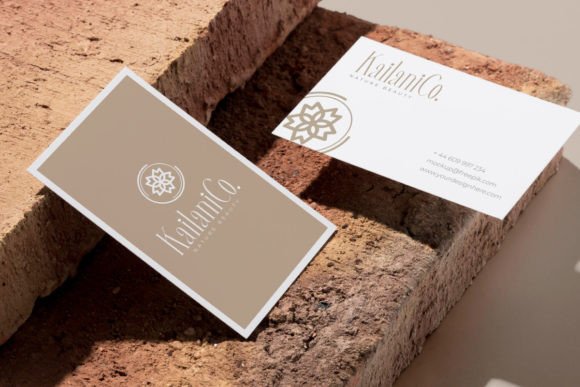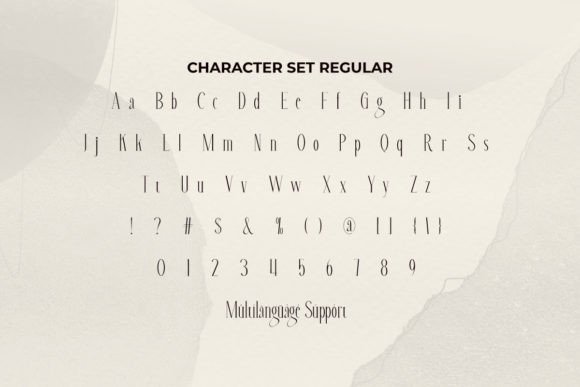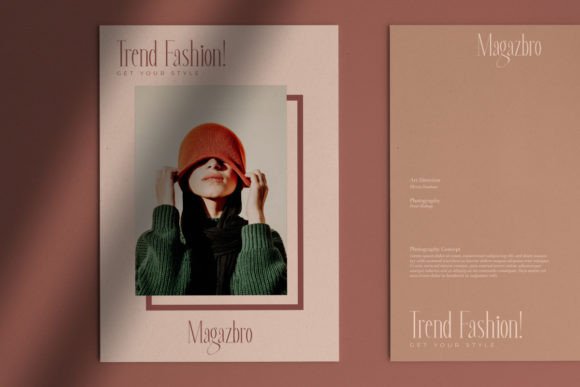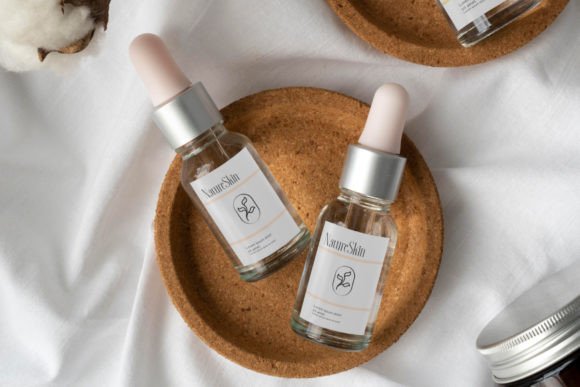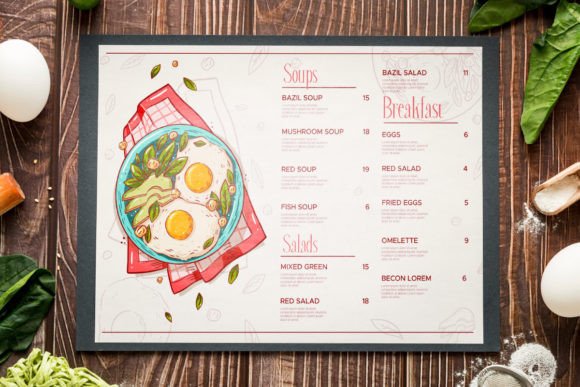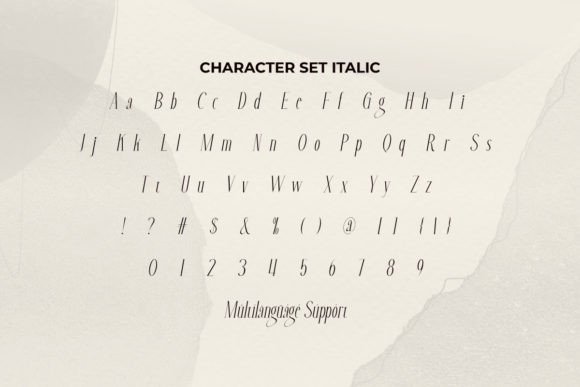
Introducing Caroline Stage Font: Elevate Your Designs with Elegance
In the world of typography, a font can make or break the aesthetic of a design. For designers and crafters seeking a touch of elegance and sophistication, Caroline Stage Font is an exceptional choice. This stylishly elegant serif font, brought to you by NoahType, offers two versatile styles: simple and italic. With its wide range of applications, Caroline Stage Font is poised to become a staple in your design toolkit.
The Essence of Caroline Stage Font
Caroline Stage Font is characterized by its classic serif design, which exudes a sense of refinement and luxury. The simple style boasts clean lines and subtle nuances, making it perfect for designs that require a touch of understated elegance. On the other hand, the italic style adds a dash of flair, with its cursive undertones and dynamic flow. This versatility allows designers to experiment with various visual hierarchies and emphasize specific elements within their work.
Applications of Caroline Stage Font
Caroline Stage Font’s adaptability makes it an excellent choice for a multitude of design applications. Some of the areas where this font truly shines include:
- Fashion: Elevate your fashion brand’s visual identity with Caroline Stage Font’s sophisticated and stylish aesthetic.
- Beauty Products: Convey luxury and high-end quality with this elegant font, perfect for packaging, branding, and advertising.
- Florists: Add a touch of refinement to floral arrangements, branding, and marketing materials with Caroline Stage Font’s delicate yet robust design.
- Restaurants: Create a warm and inviting atmosphere with this font, ideal for menus, signage, and promotional materials.
- Photography: Use Caroline Stage Font to add a touch of sophistication to your photography portfolio, blog, or social media profiles.
- Publishing: Bring a sense of classic elegance to your publications, including books, magazines, and newspapers.
- Printing: Caroline Stage Font is well-suited for various printing applications, such as business cards, brochures, and flyers.
Why Choose Caroline Stage Font?
With an abundance of fonts available, what sets Caroline Stage Font apart?
- Elegance: Caroline Stage Font’s classic serif design and elegant aesthetic make it an excellent choice for designers seeking to add a touch of sophistication to their work.
- Versatility: The font’s two styles – simple and italic – offer flexibility and allow designers to experiment with different visual approaches.
- Readability: Caroline Stage Font is designed to be highly legible, ensuring that your message is conveyed clearly and effectively.
- Quality: As a product of NoahType, Caroline Stage Font is crafted with attention to detail, guaranteeing a high-quality font that will elevate your designs.
Tips for Using Caroline Stage Font
To make the most of Caroline Stage Font, consider the following tips:
- Pair with contrasting fonts: Combine Caroline Stage Font with a sans-serif font to create visual interest and emphasize specific design elements.
- Experiment with font sizes: Play with font sizes to create a clear visual hierarchy and draw attention to key information.
- Use the italic style judiciously: The italic style can add emphasis and create a sense of movement. Use it sparingly to avoid overwhelming the design.
Caroline Stage Font is a versatile and elegant serif font that can elevate a wide range of design applications. Its classic design, combined with its simplicity and italic styles, make it an excellent addition to any designer’s toolkit. Whether you’re working on a fashion brand, beauty products, or publishing a book, Caroline Stage Font is sure to bring a touch of sophistication and refinement to your work. With its exceptional readability, quality, and adaptability, this font is poised to become a favorite among designers and crafters alike.